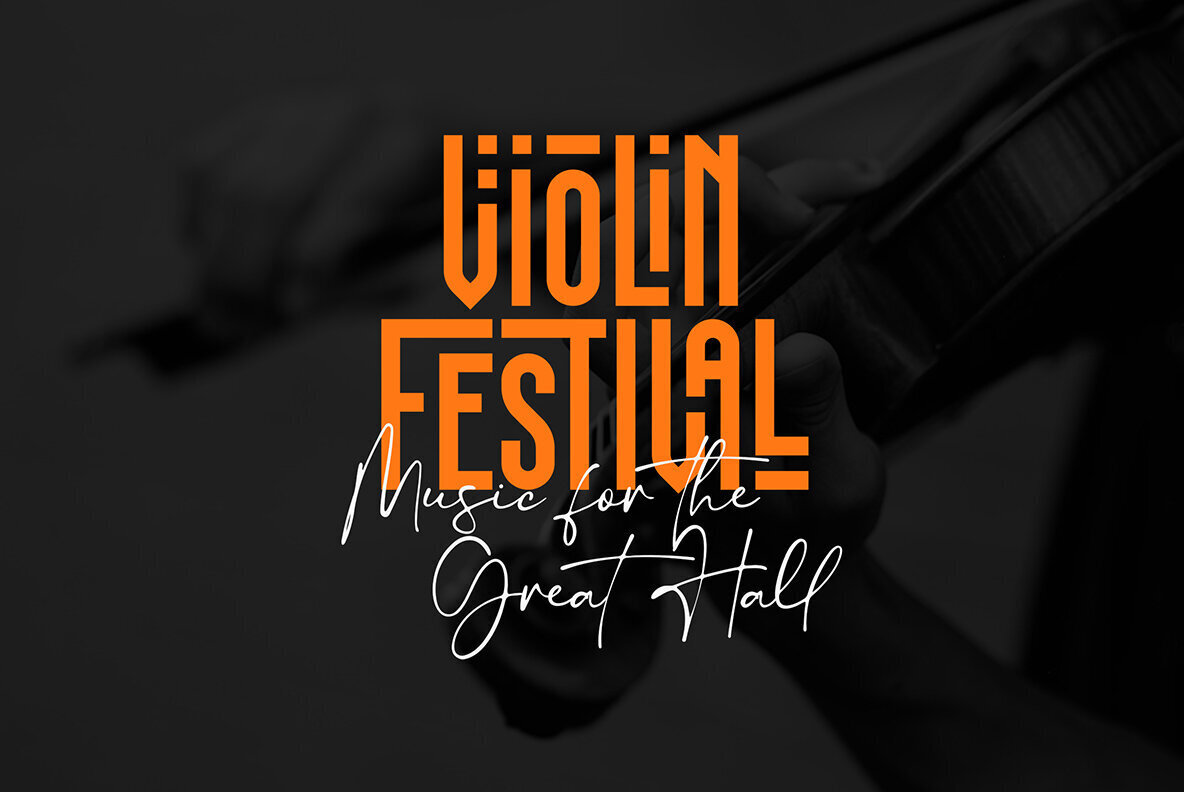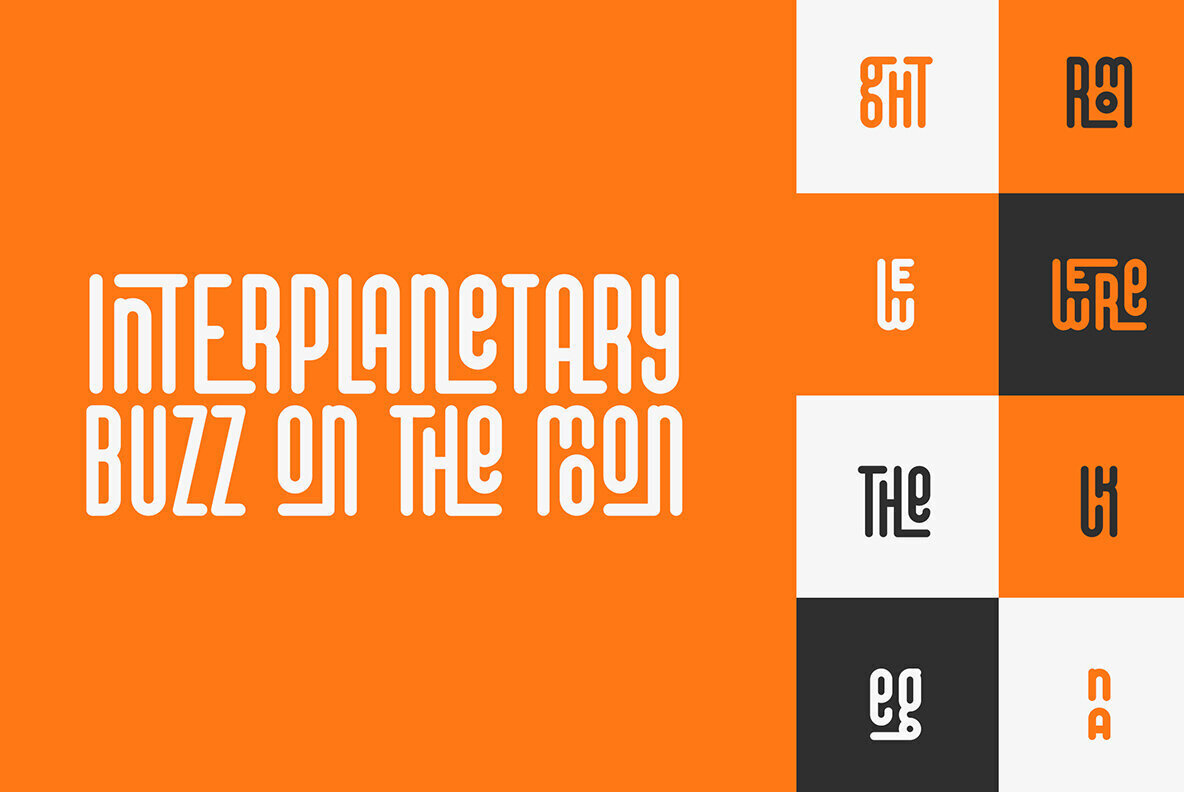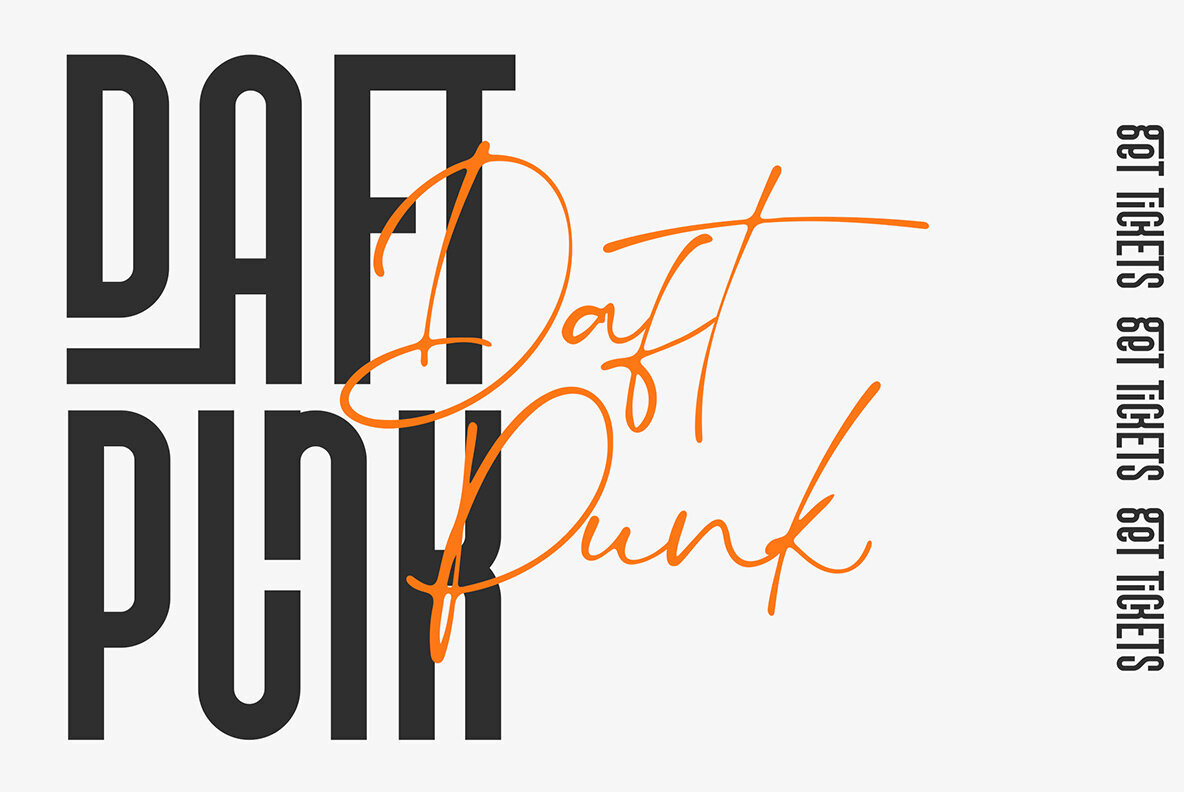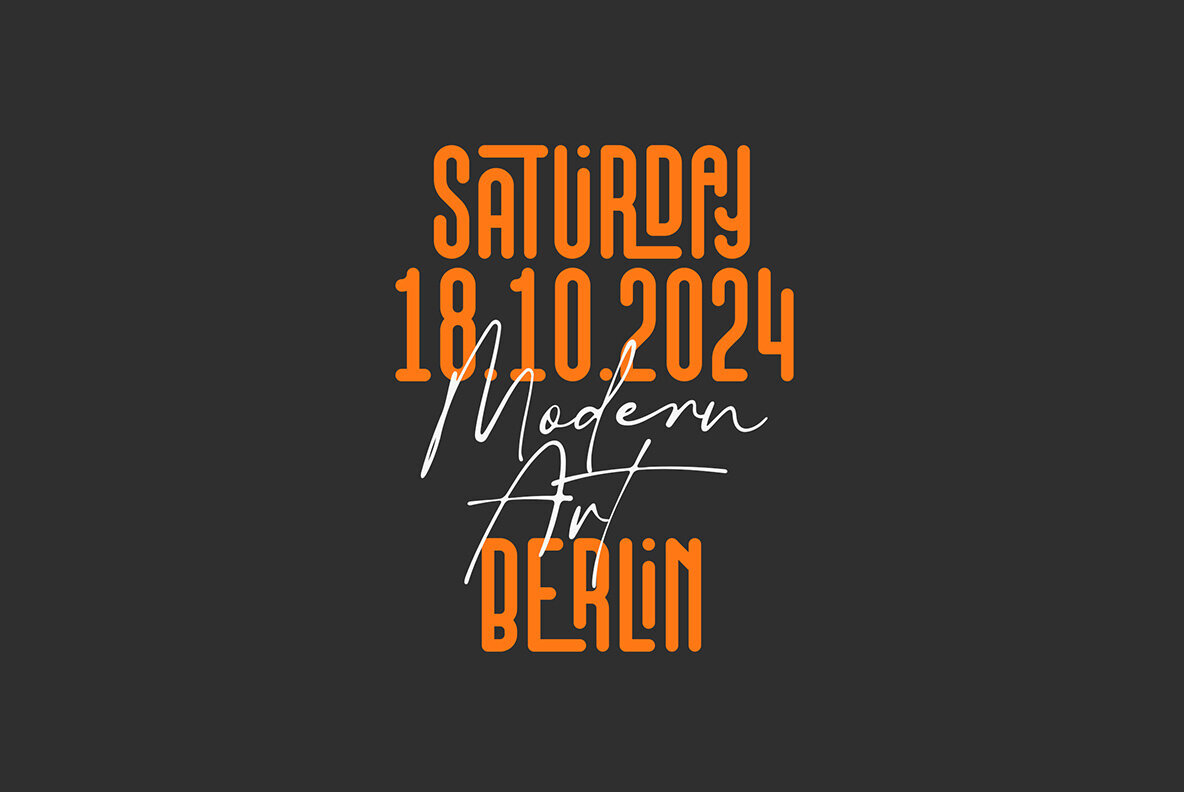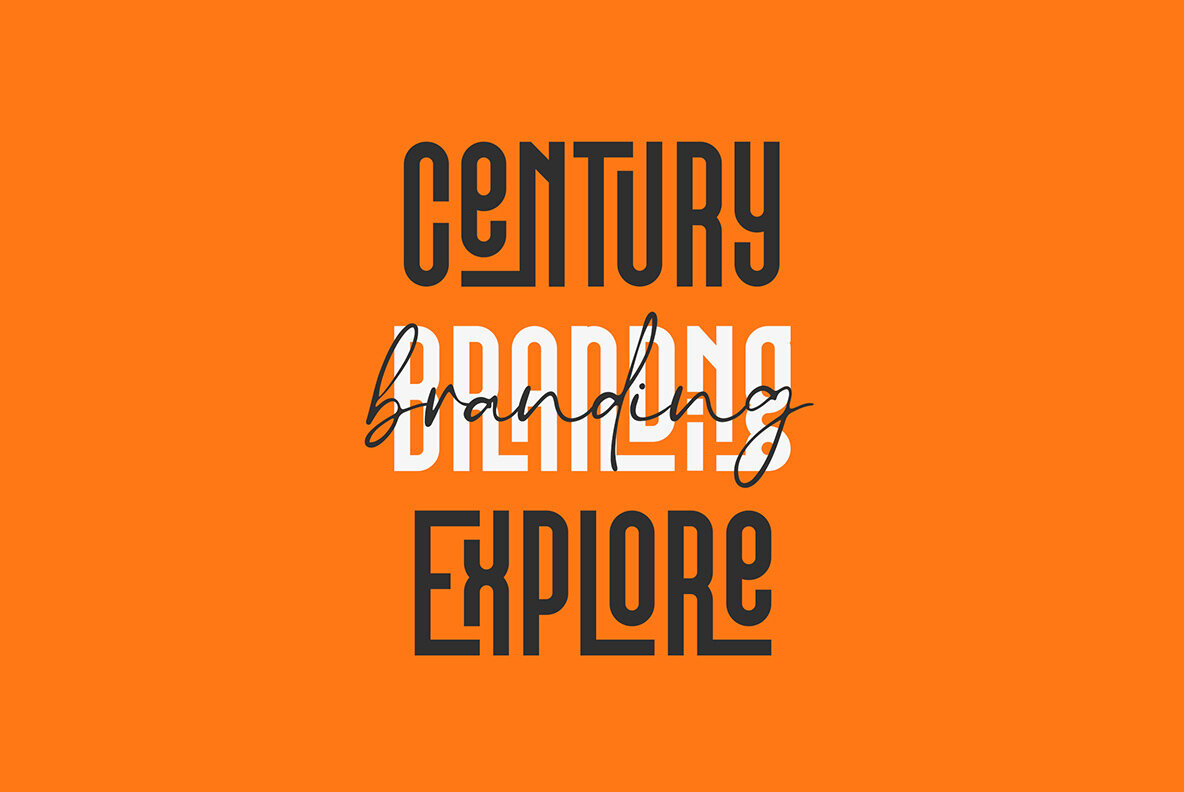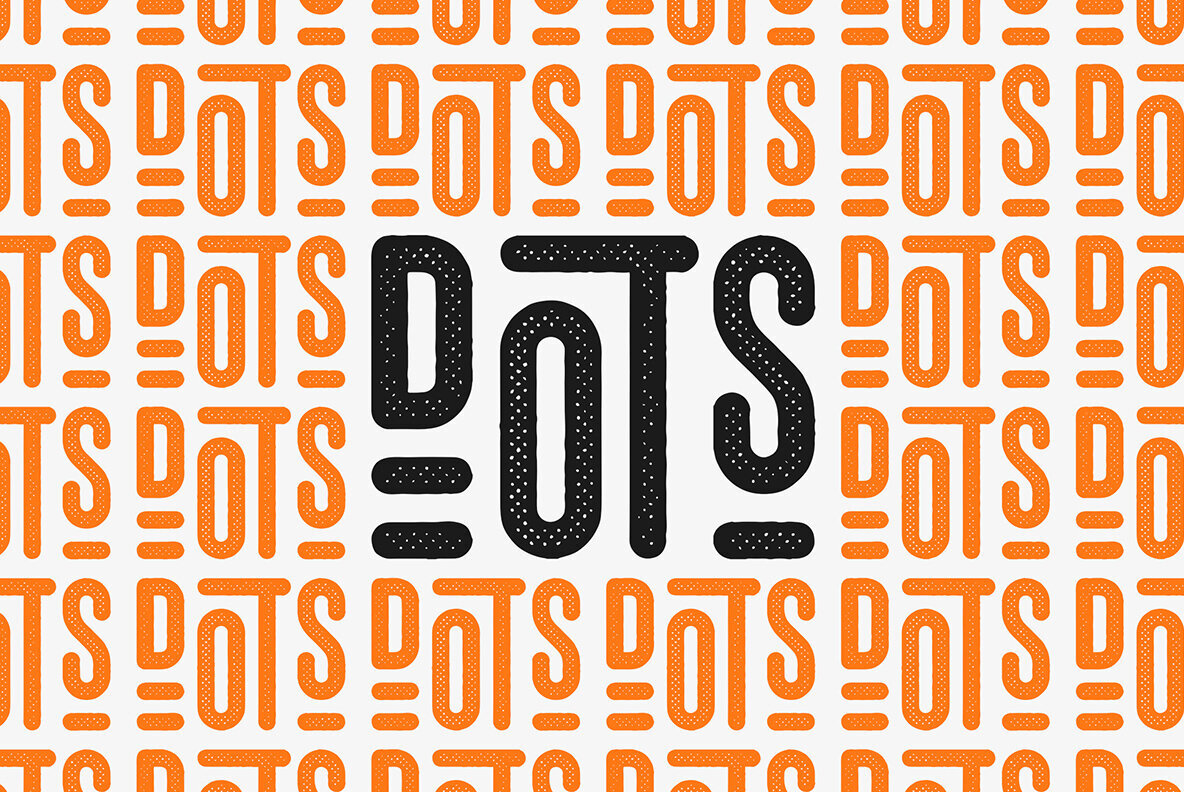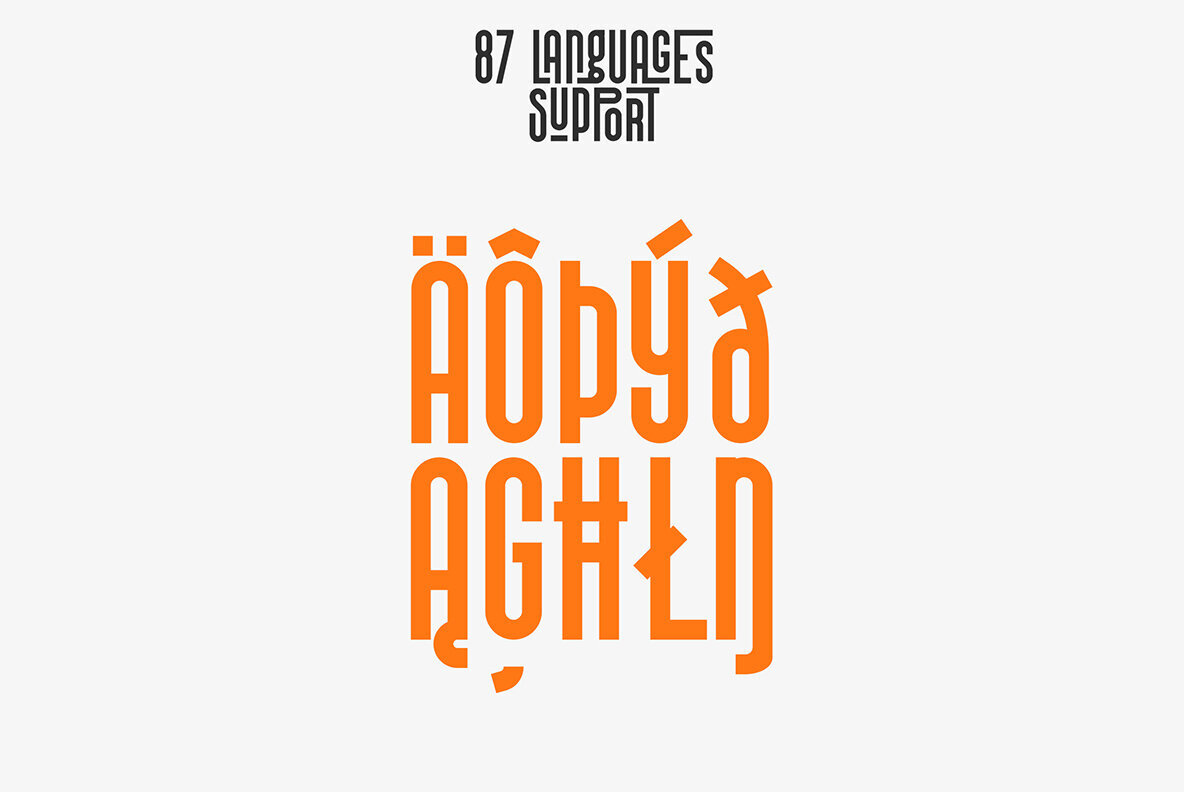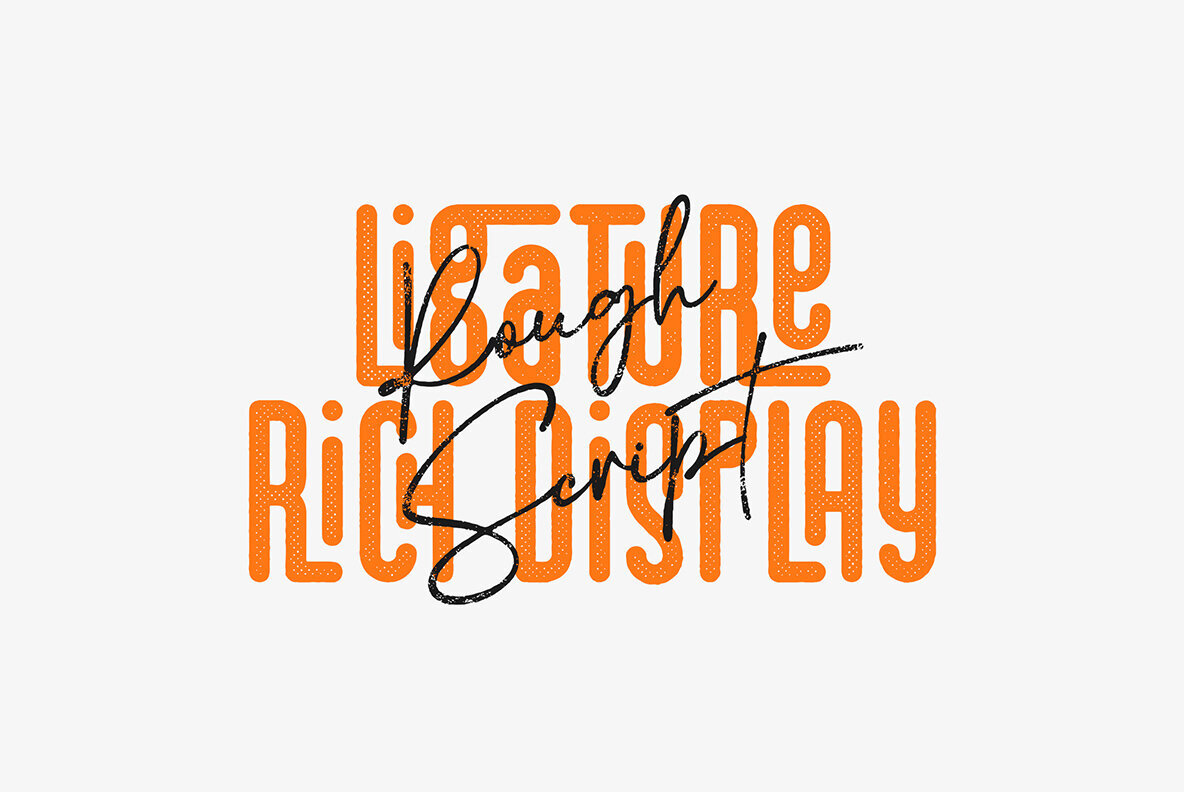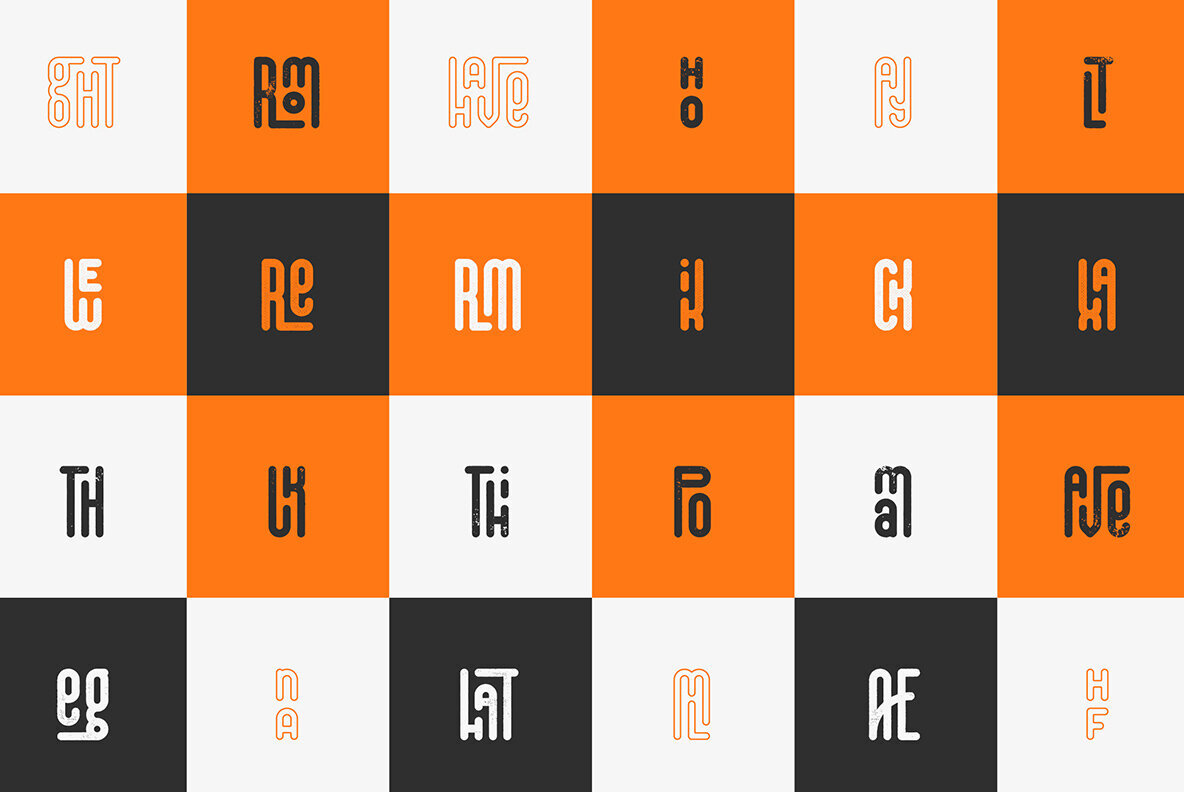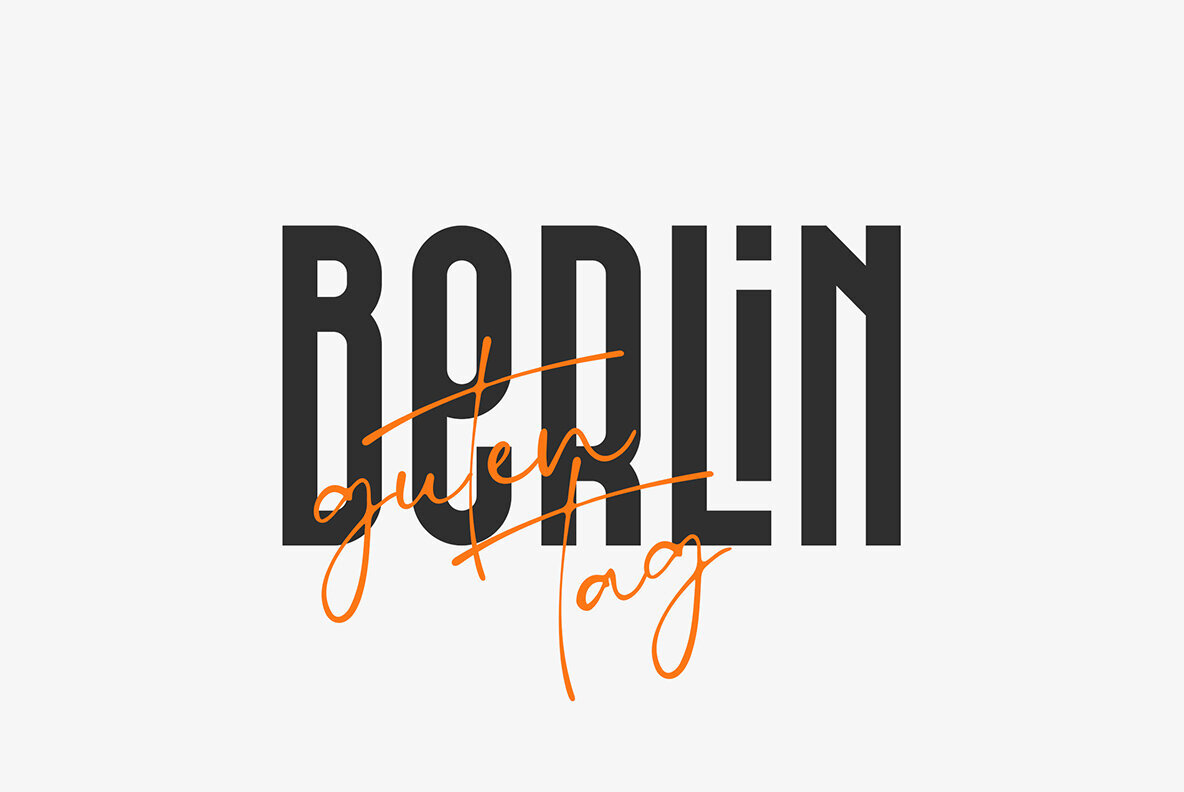
This That Appeal Font
Introducing "This & That Appeal" - The Ultimate Font Collection for Diverse Creations! Dive into the world of typography with "That and This Appeal", a striking font collection that brilliantly combines versatility and style. This unique pairing features two complementary typefaces, each with its own charm and functionality, making it a must-have for your creative toolkit. First up is our Display Fonts. This gem is not just a font, it's a statement! With over 200 ligature glyphs and a whopping 70+ alternate glyphs, it's your go-to choice for crafting eye-catching headlines and unforgettable logos. Its long, elegant strokes and diverse range of glyphs ensure that your designs will stand out, be it in print or digital media. Complementing this is our Casual Modern Script. It's like the cool, laid-back cousin in the font family! With its smooth, flowing lines, this script brings a touch of modern casual flair that feels both personal and professional. It's perfect for everything from branding projects to personal invitations, adding a human touch to your designs. Together, these fonts support an impressive 87 languages, making "That and This Appeal" not just beautiful, but incredibly versatile and inclusive. Whether you're creating for a global audience or targeting a specific linguistic group, these fonts have got you covered. So, whether you're designing a bold logo, a stylish headline, or a heartfelt invitation, "That and This Appeal" is here to elevate your work. Get ready to make your designs not just seen, but remembered! Language Support : Afrikaans, Albanian, Asu, Basque, Bemba, Bena, Breton, Chiga, Colognian, Cornish, Czech, Danish, Dutch, Embu, English, Estonian, Faroese, Filipino, Finnish, French, Friulian, Galician, Ganda, German, Gusi,i Hungarian, Indonesian, Irish, Italian, Jola-Fonyi, Kabuverdianu, Kalenjin, Kamba, Kikuyu, Kinyarwanda, Latvian, Lithuanian, Lower Sorbian, Luo, Luxembourgish, Luyia, Machame, Makhuwa-Meetto, Makonde, Malagasy, Maltese, Manx, Meru, Morisyen, North Ndebele, Norwegian, Bokmål, Norwegian, Nynorsk, Nyankole, Oromo, Polish, Portuguese, Quechua, Romanian, Romansh, Rombo, Rundi, Rwa, Samburu, Sango, Sangu, Scottish, Gaelic, Sena, Shambala, Shona, Slovak, Soga, Somali, Spanish, Swahili, Swedish, Swiss, German, Taita, Teso, Turkish, Upper, Sorbian, Uzbek (Latin), Volapük, Vunjo, Walser, Welsh, Western Frisian, Zulu Ligatures : AB,AC,AD,AE,AF,AG,AH,AI,AK,AM,AN,AO,AP,AR,AS,AT,AU,AV,AW,AY,AZ,BA,BM,CA,CC,CH,CI,CK,CO,CG, CT,CU,DA,DG,DK,DR,DO,DN,DU,EA,EB,ED,EE,EF,EG,EH,EI,EK,EL,EM,EN,EP,ER,ES,ST,EU,EV,EW,EX,EY,FA, FE,FF,FG,FI,FL,FO,FP,FR,FS,FT,FU,FY,GA,GE,GH,GL,GR,HA,HB,HD,HE,HF,HI,HK,HL,HO,HT,IK,IL,IT,IU,KA,KC, KE,KF,KG,KI,KO,KP,KQ,KR,KS,LA,LC,LD,LE,LF,LI,LK,LL,LM,LN,LO,LP,LT,LU,MA,MB,ME,MF,ML,MO,MP,MS, MU,NA,NB,NC,ND,NE,NF,NG,NH,NI,NK,NL,NM,NN,NO,NT,NU,OA,OC,OD,OH,OG,OK,OM,ON,OO,OT,OW, PA,PC,PE,PF,PG,PM,PN,PO,QA,QE,QU,RA,RB,RC,RD,RE,RH,RI,RK,RM,RN,RR,RT,ST,TC,TD,TE,TH,TI,TK,TL,TM, TT,TU,TW,TY,UH,UK,UM,UN,VA,WA,WD,WE,WO,XA,XT,YT,MEN,WER,FRO,RON,ROM,THE,AND,ING,HER, HAT,HIS,THA,ERE,FOR,ENT,TER,WAS,ITH,VER,ALL,THI,IGN,GHT,AVE,HAV,HIC,HIS,HIN,HEY,ATI,HING, WERE,FROM,THAT,THER,HERE,IGHT,HAVE,HIS,THIN,THEY How to access alternate glyphs? To access alternate glyphs in Adobe InDesign or Illustrator, choose Window Type & Tables Glyphs In Photoshop, choose Window Glyphs. In the panel that opens, click the Show menu and choose Alternates for Selection. Double-click an alternate's thumbnail to swap them out. Mock ups and backgrounds used are not included.